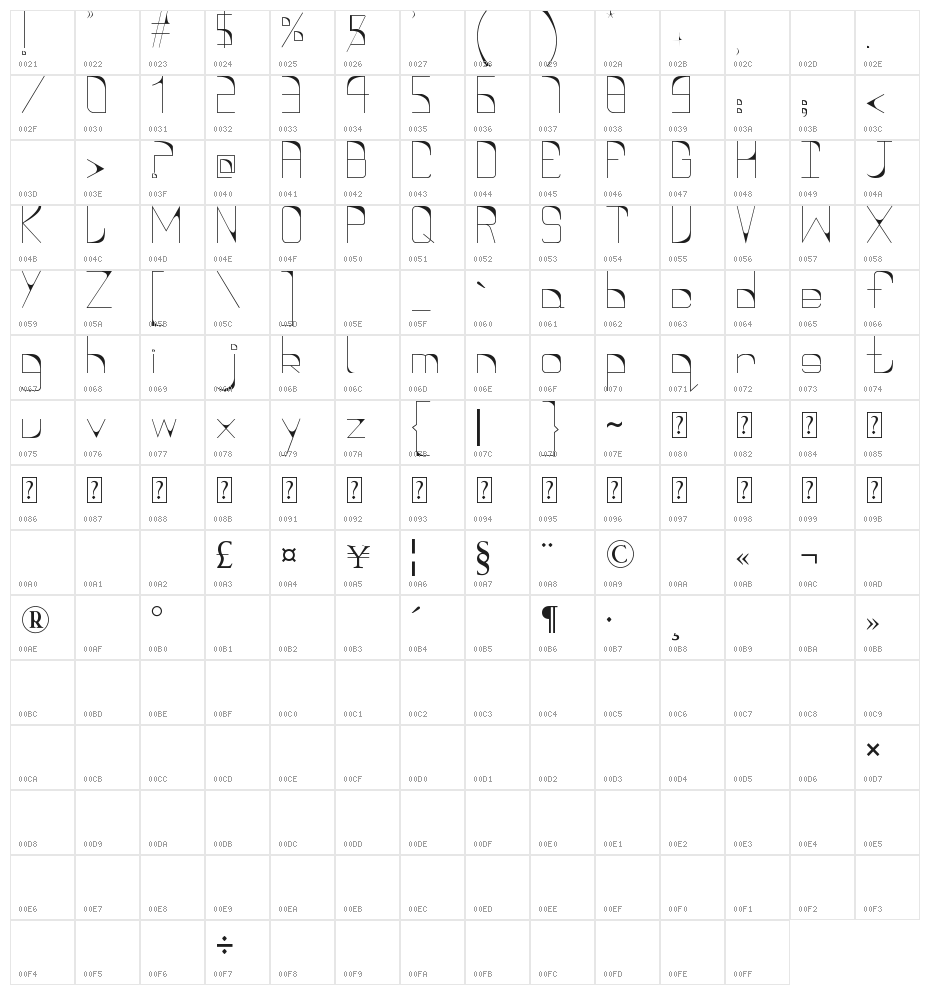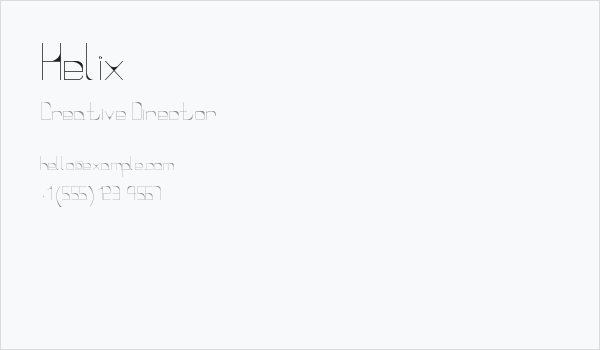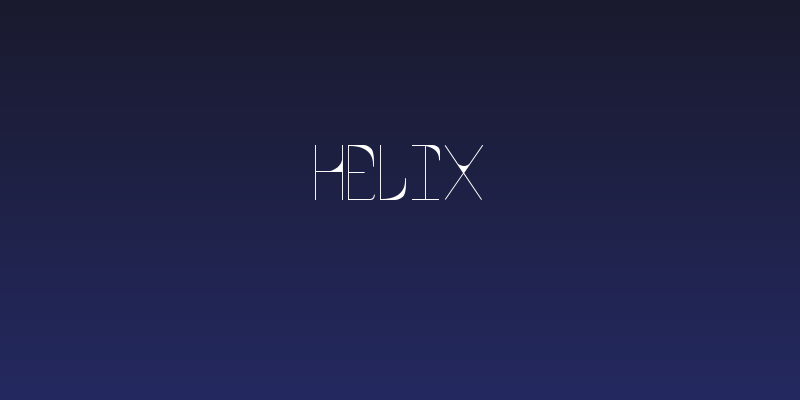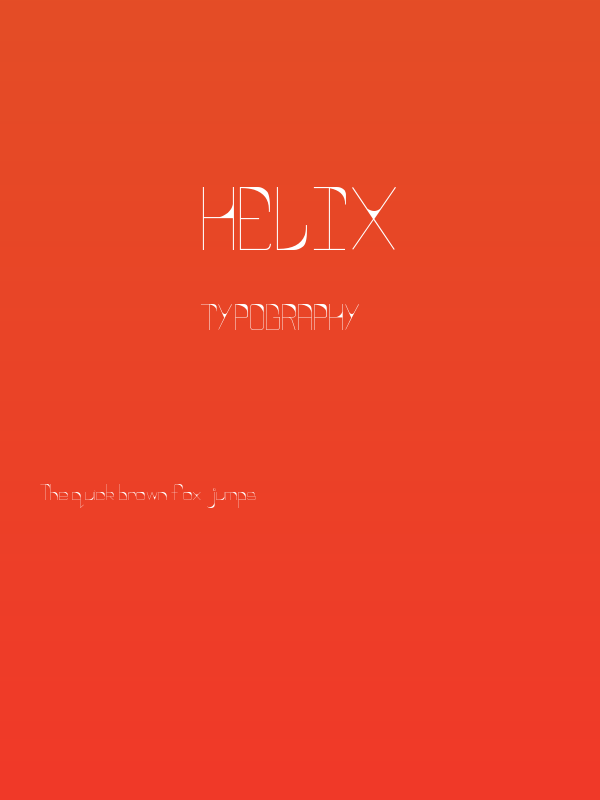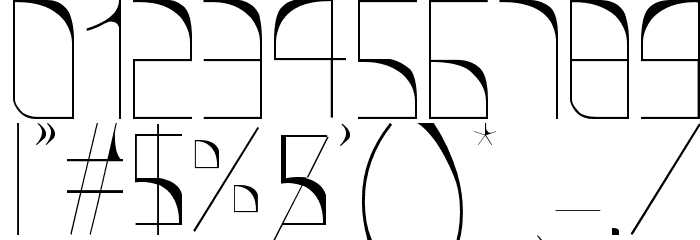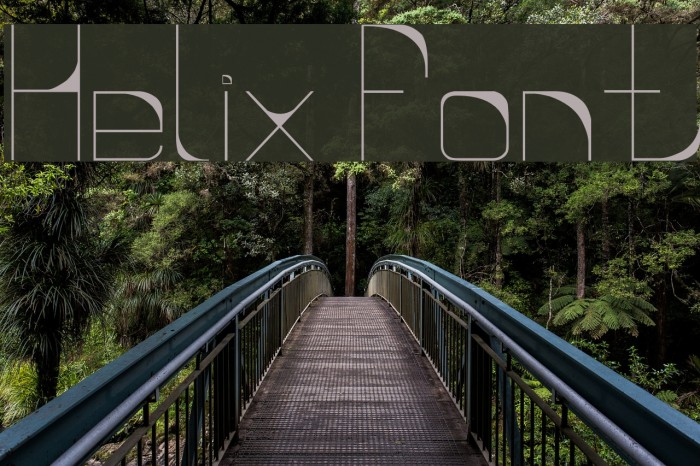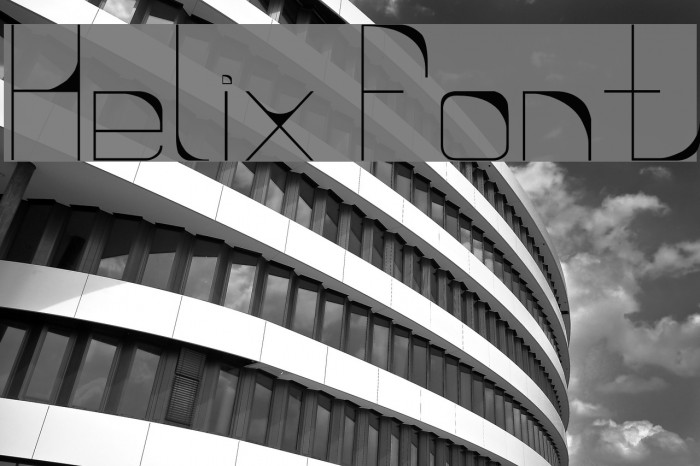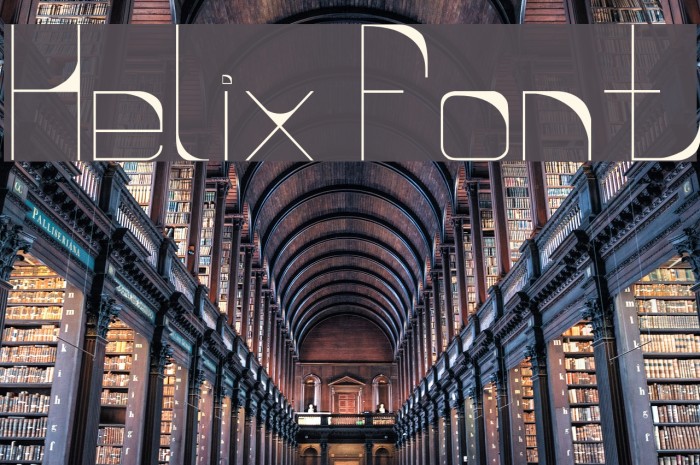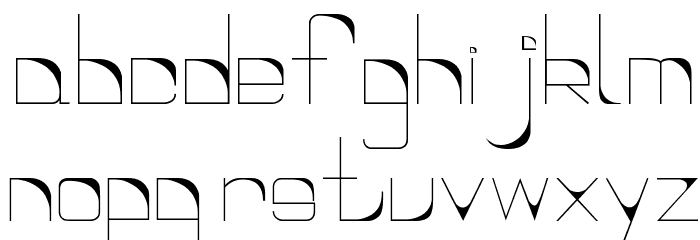
Helix Font
Helix Description
This font features a modern and geometric design with a unique blend of sharp angles and smooth curves. The uppercase letters are tall and narrow, with distinct angular cuts that give a futuristic appearance. The lowercase letters maintain a similar style, offering a cohesive look across the typeface. The numerals are consistent with the overall design, featuring clean lines and a contemporary feel. Special characters are stylized to match the angular and sleek aesthetic, making this font ideal for creative and innovative projects.